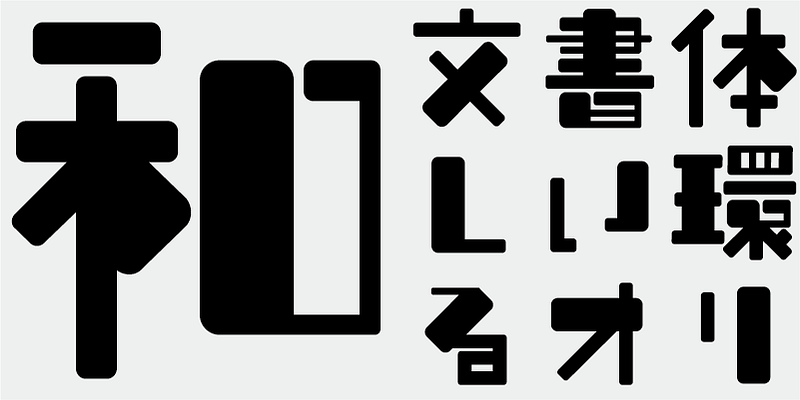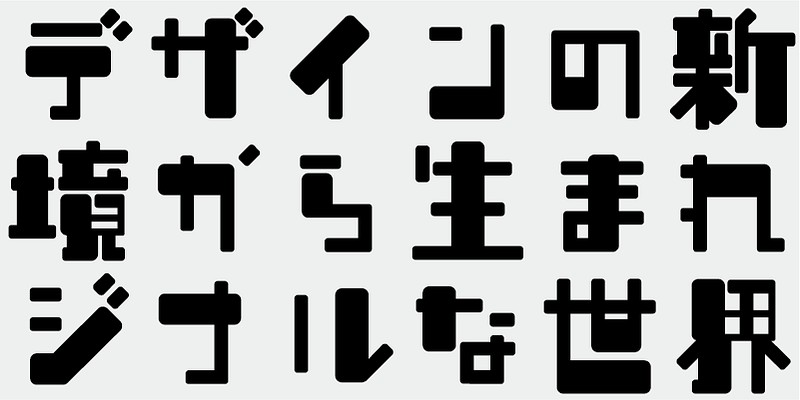
This typeface design brings to mind the years past. Even with an unevenness, which makes it look slightly imperfect, this typeface will surely attract you.